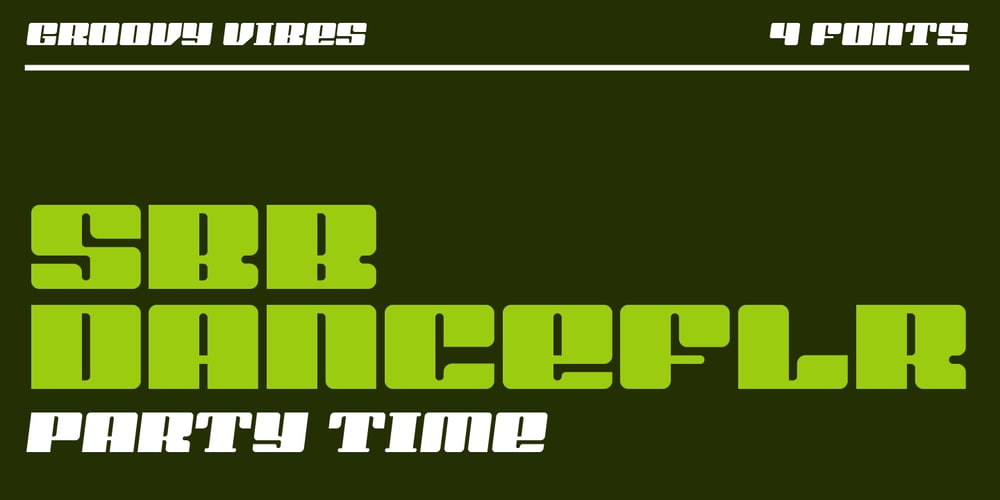
SbB Danceflr
SbB Danceflr font
SbB Danceflr Font Family was designed by Bob Wertz and published by Sketchbook B. SbB Danceflr contains 4 styles and family package options. SbB Danceflr is fun with a little bit of a 1970s feel. High contrast. High energy. SbB Danceflr has four versions: a regular paired with three italic angles, each with their own tempo. Each slant angle amplifies your message in a different way. SbB Danceflr is intended to be used as a bold display font, but use it in concert with something a little more readable for branding and editorial projects.